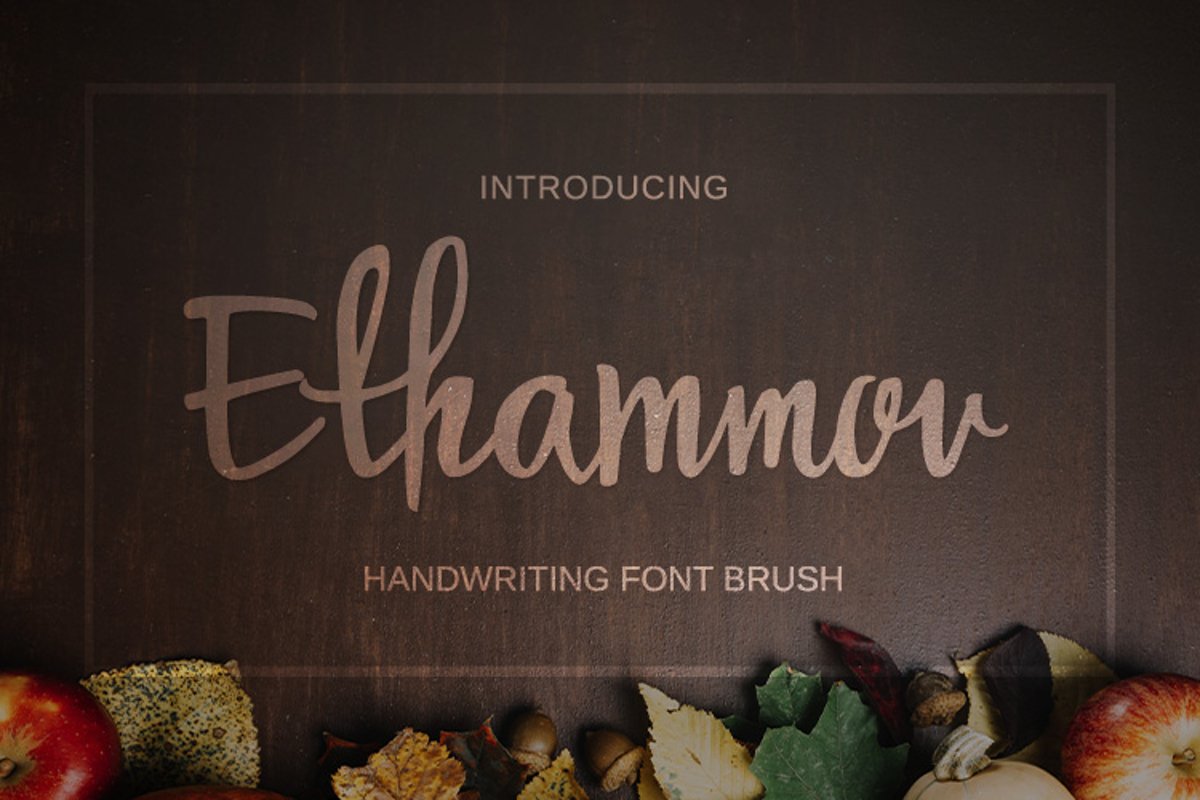
INTRODUCING...!! Ethamoov Brush
Ethamoov brush is a smooth hand calligraphy, modern calligraphy wavy,
which was created to meet the needs of your next design project.
Ethamoov brush, Can used for various purposes. such as the title, logo,
correspondence, wedding invitations, letterhead, signage, labels,
newsletters, posters, badges, t-shirt, etc.